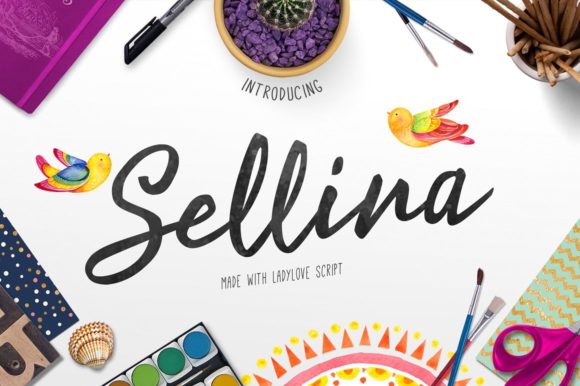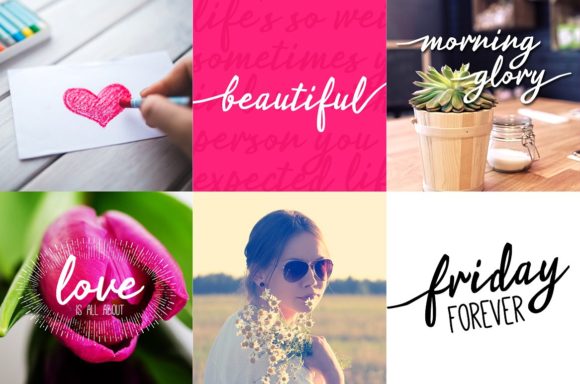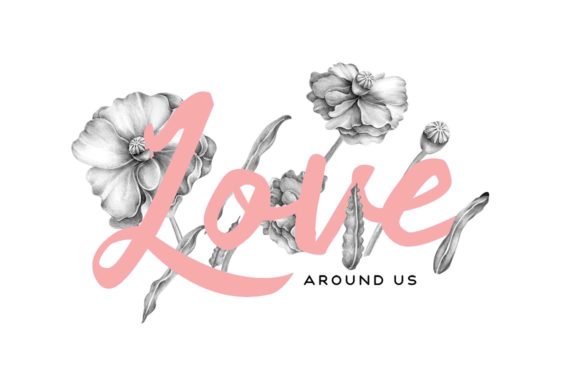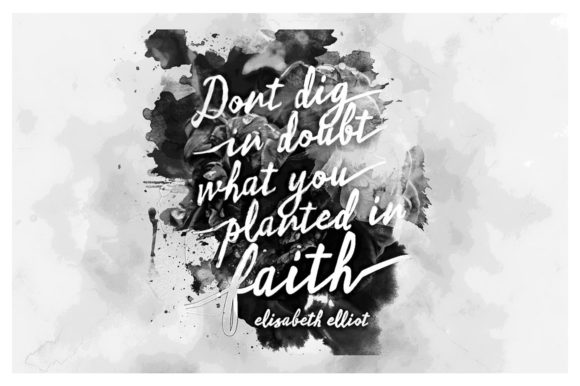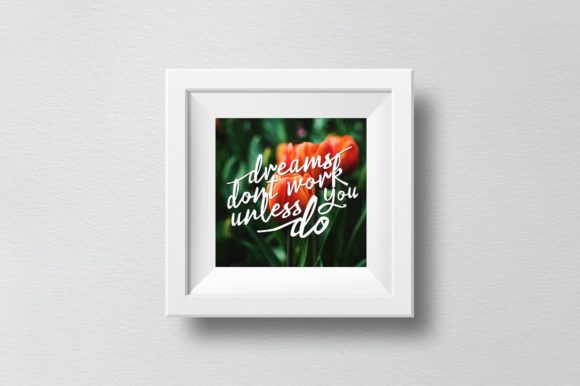
Ladylove Font
About Ladylove Font
The Ladylove is an elegant calligraphy-style script. It has an imperfect flow which will give your design unexpected beautiful looks!
It’s perfect for designing book covers, film covers, apparel, cards, logos, posters, and much more!